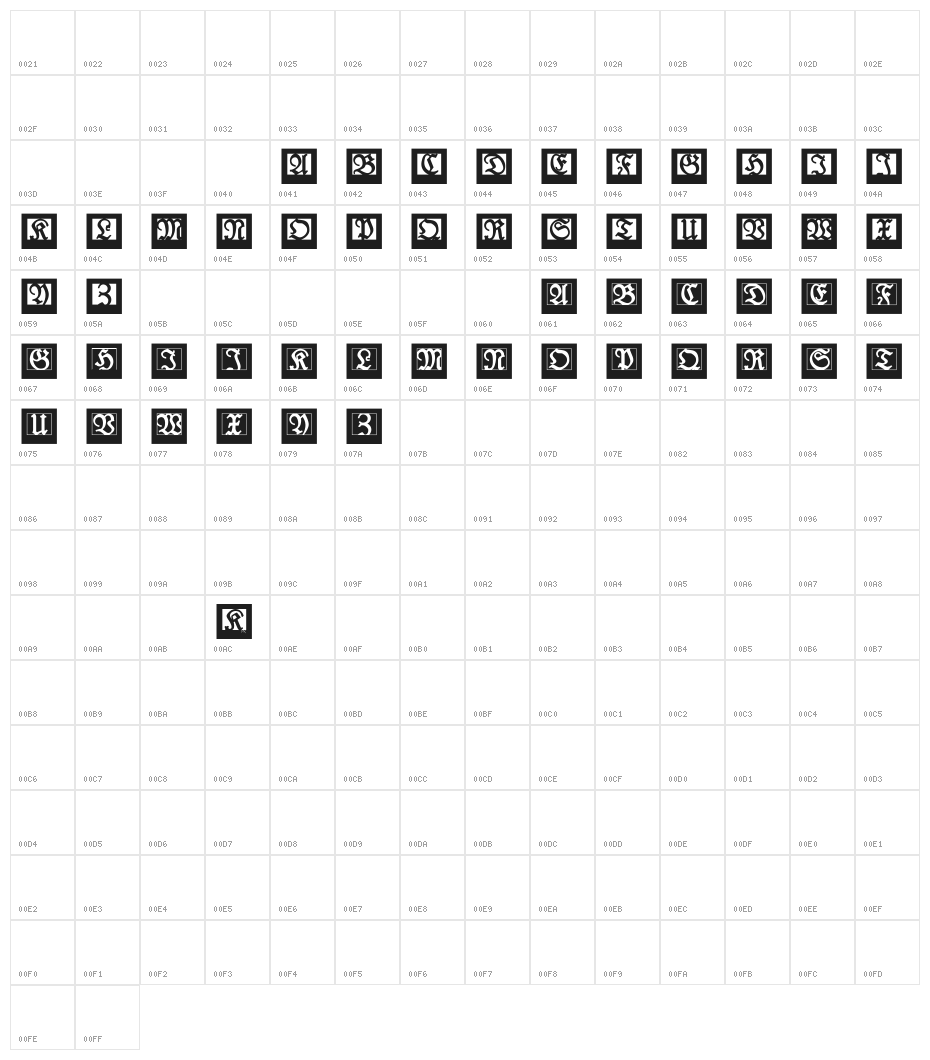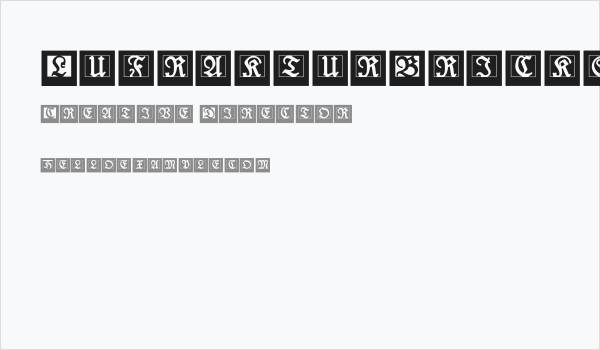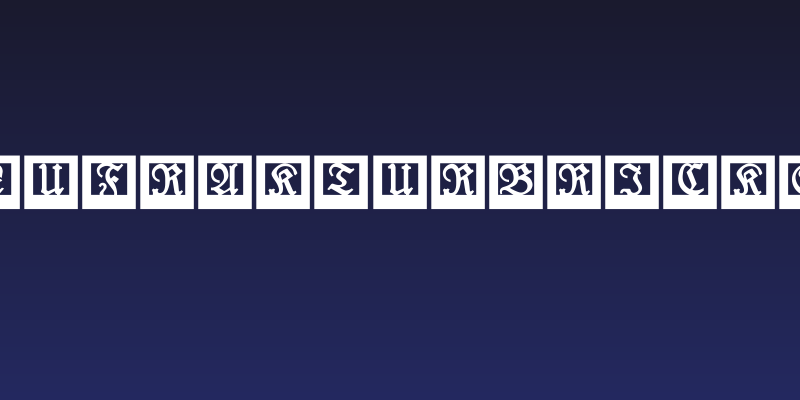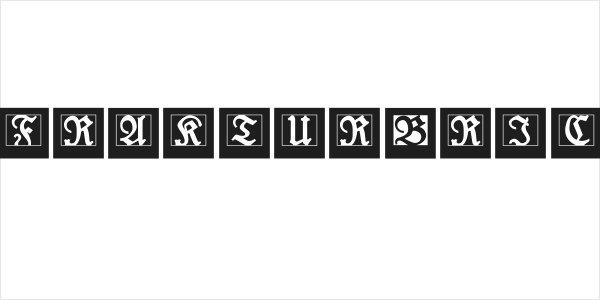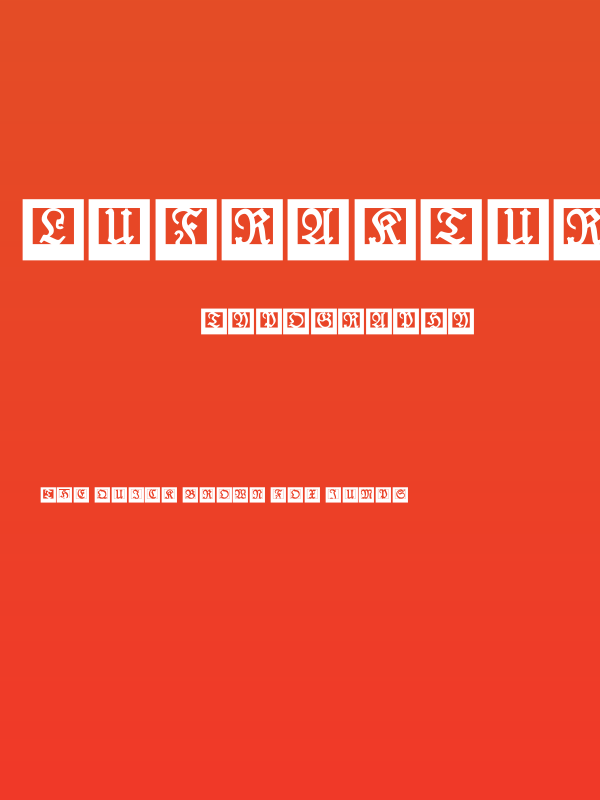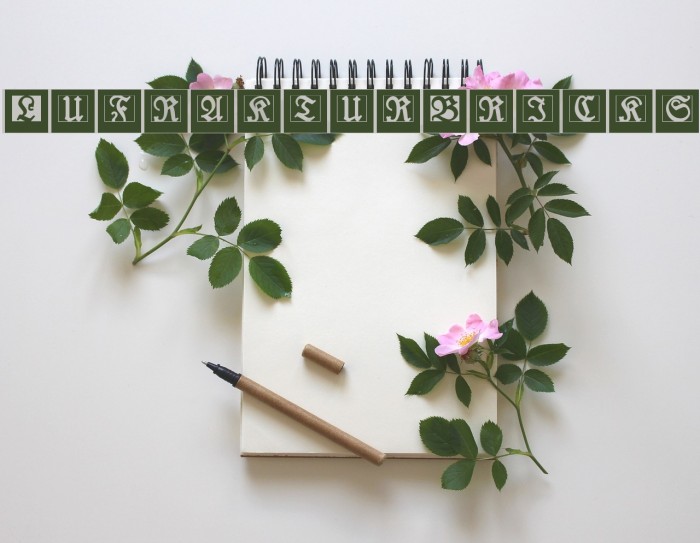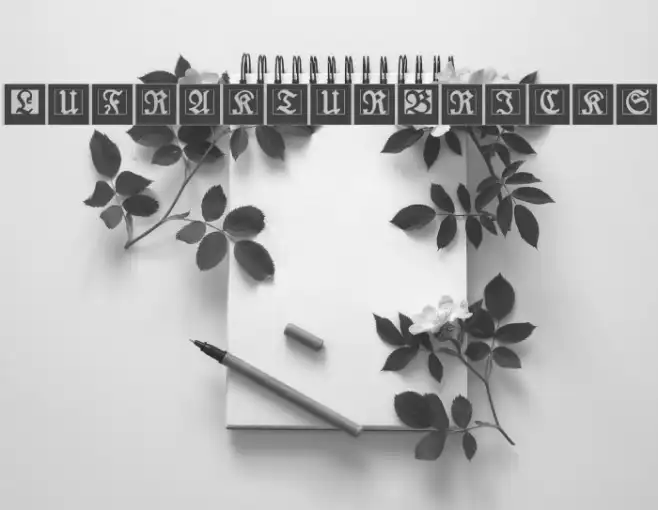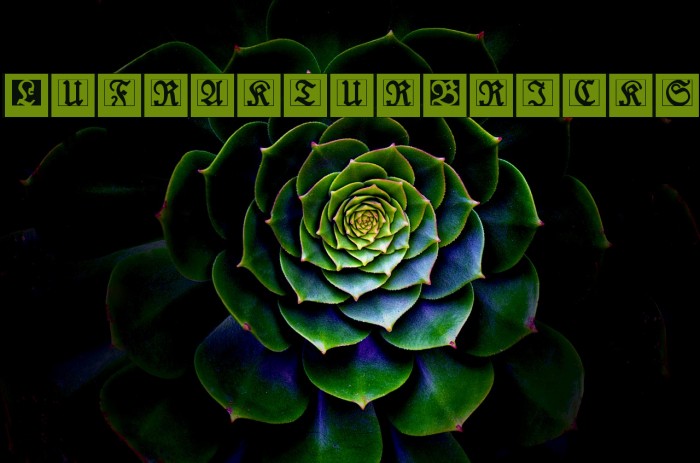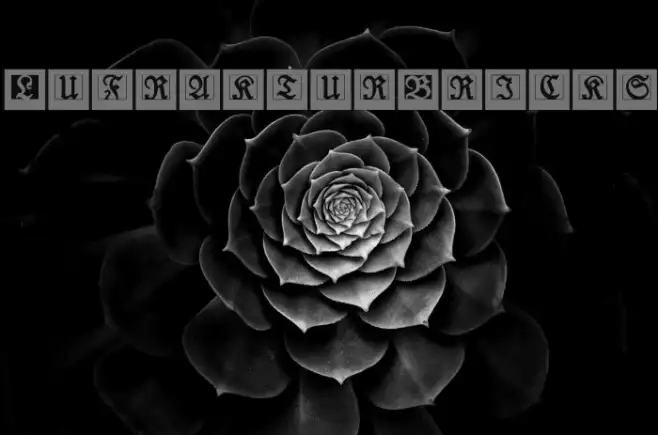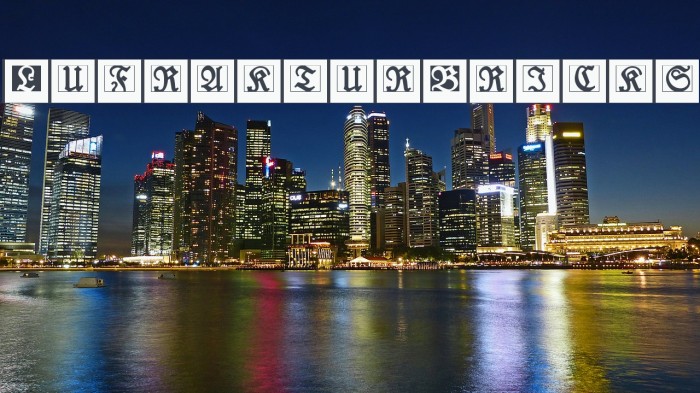
LufrakturBricks Font
LufrakturBricks Description
This font features a bold and intricate design reminiscent of traditional blackletter styles, characterized by its ornate and angular letterforms. Each character is enclosed within a square, creating a distinct and uniform appearance. The strokes are thick and consistent, with sharp edges and decorative elements that enhance its gothic aesthetic. The font's unique style makes it stand out, offering a dramatic and historical feel that is both eye-catching and memorable.
| Use Case | Logos, Headlines, Decorative elements |
| Proposed Projects | Ideal for projects requiring a historical or gothic touch, such as medieval-themed designs, book covers, posters, or branding for vintage or artisanal products. |